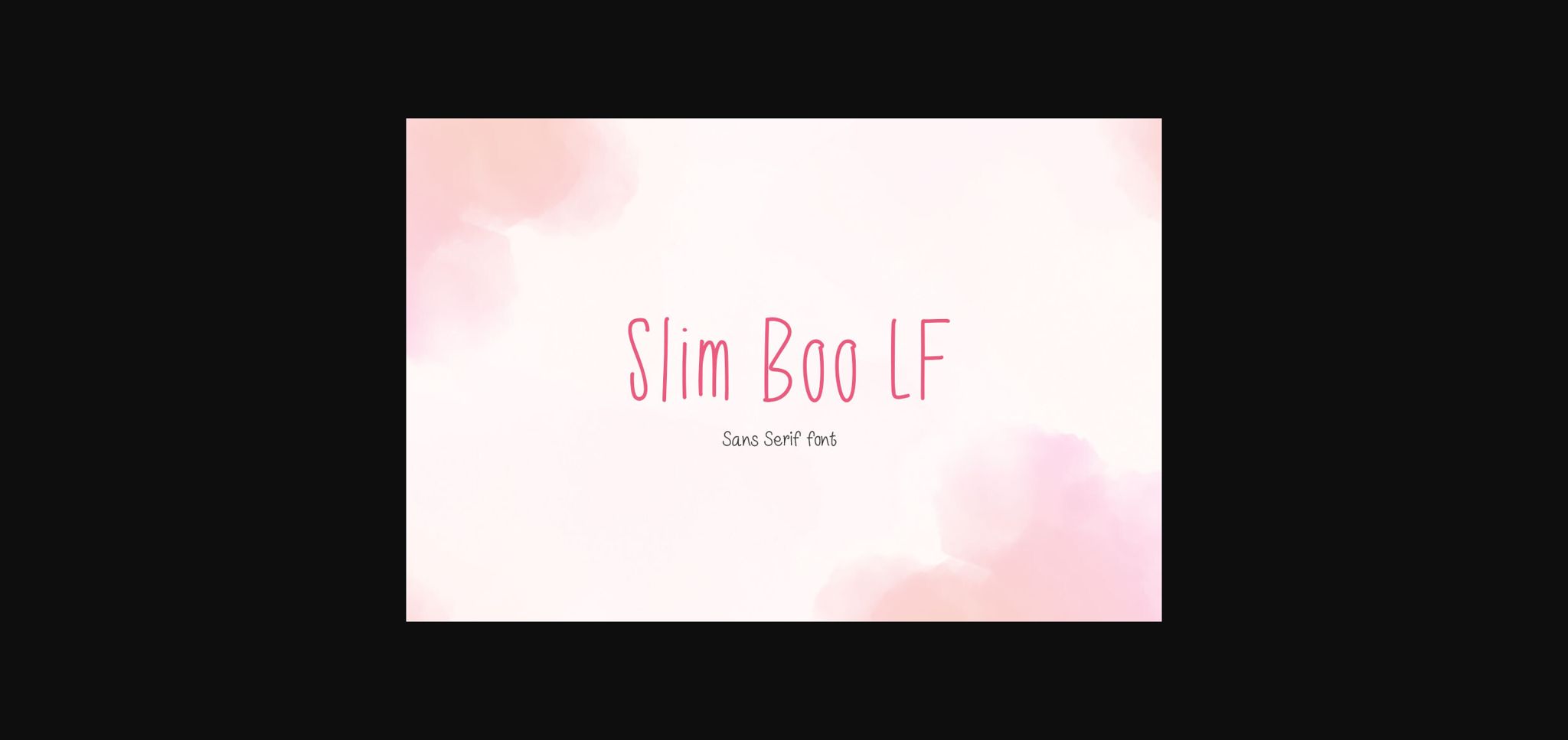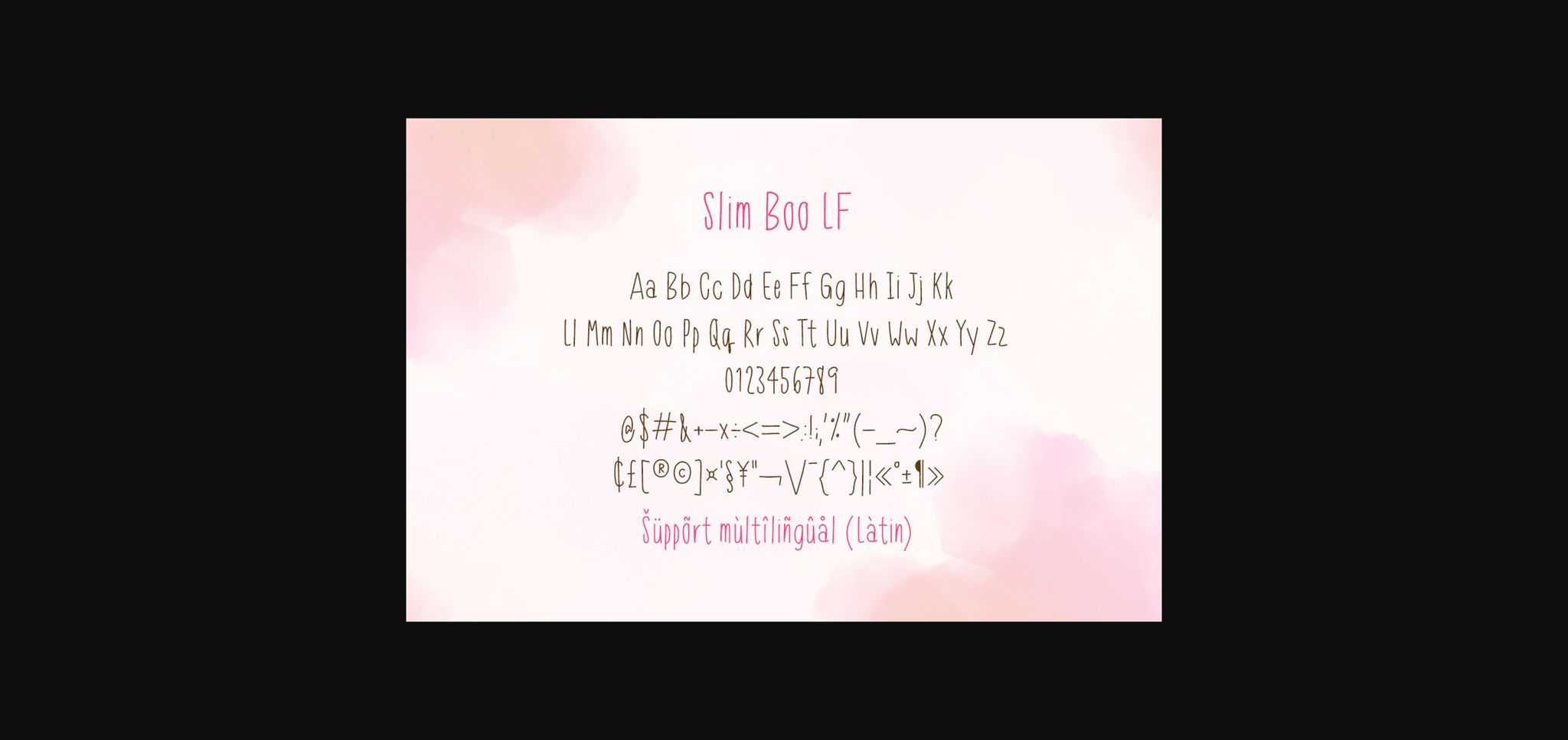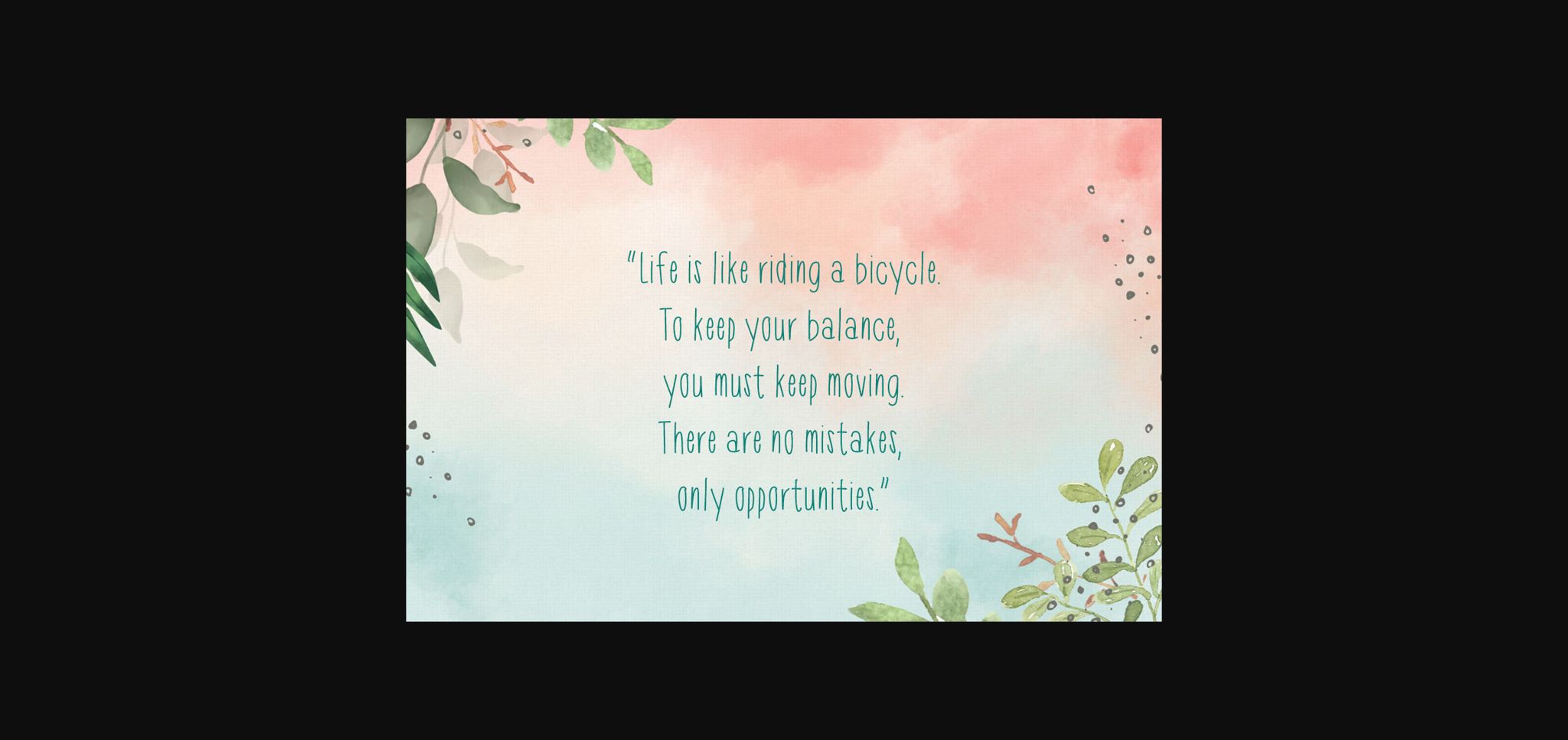
About Slim Boo Lf Font
Slim Boo LF is a handwritten font, a stylish, slim and modern sans serif font. It would be awesome to your fun projects or diary planner, on wedding invitations, thank you cards, quotes, greeting cards, logos, posters, blogs, bag, T Shirt, clothing and other designs. choice for each to your creations and take your designs to the next level!